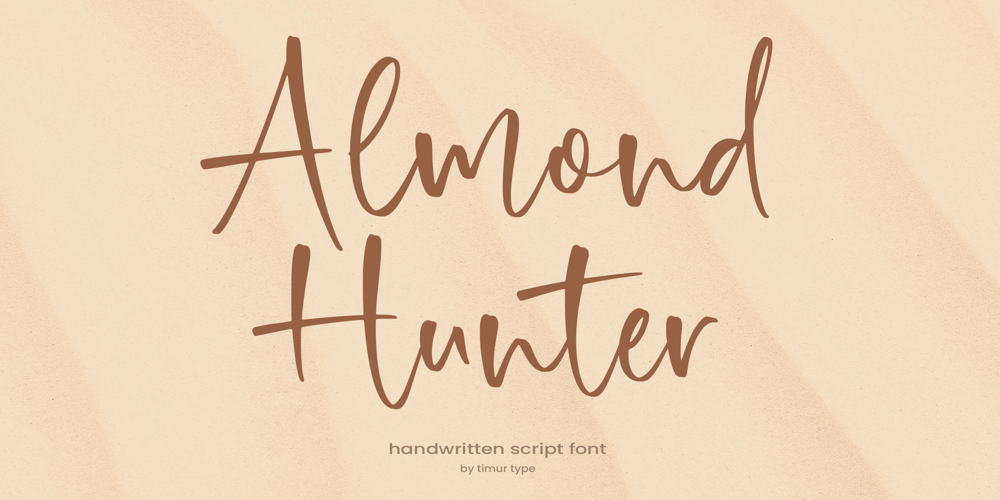
Almond Hunter
Almond Hunter font
Almond Hunter Font Family was designed by Wara Sigit Tri Pamungkas and published by Timurtype. Almond Hunter contains 1 styles and family package options. Introducing by Timur typeProudly Present, Almond Hunter A Handwritten FontAlmond Hunter is perfect for product packaging, branding project, megazine, social media, wedding, or just used to express words above the background.Almond Hunter also multilingual support.Enjoy the font.Thank you!